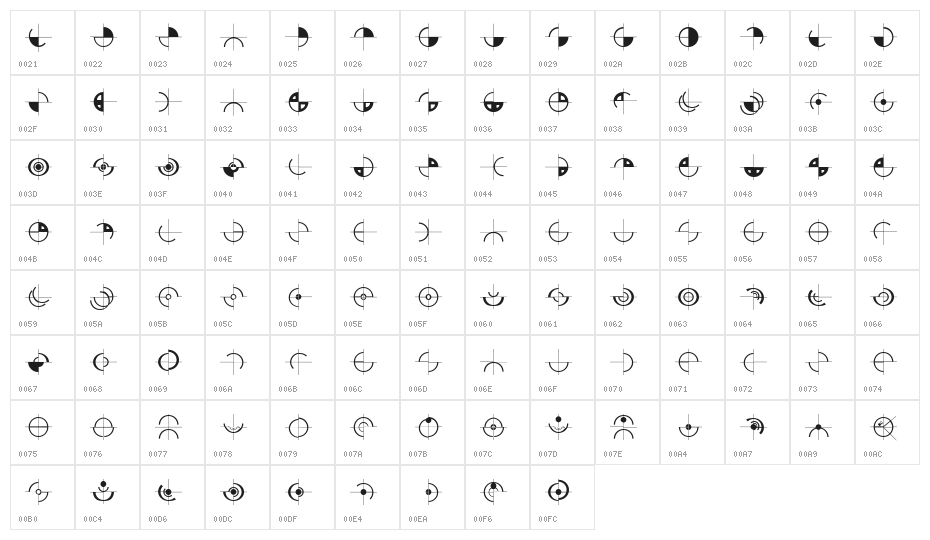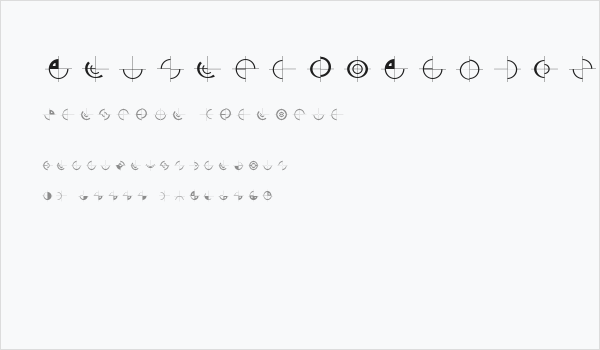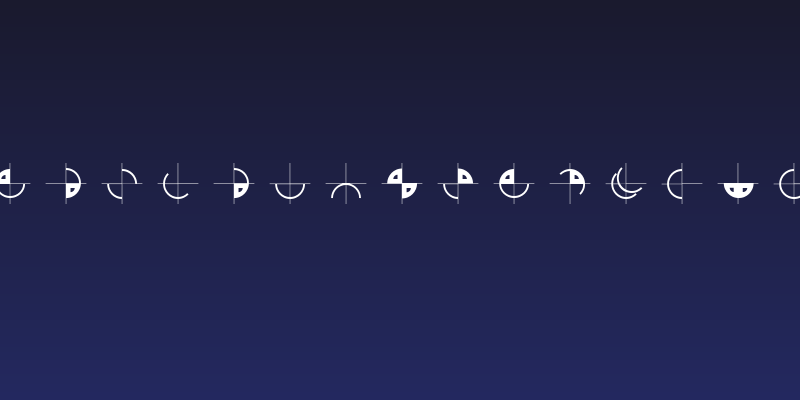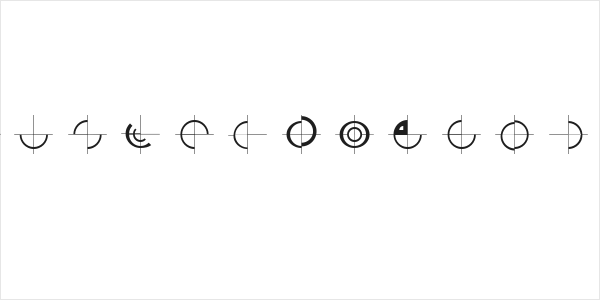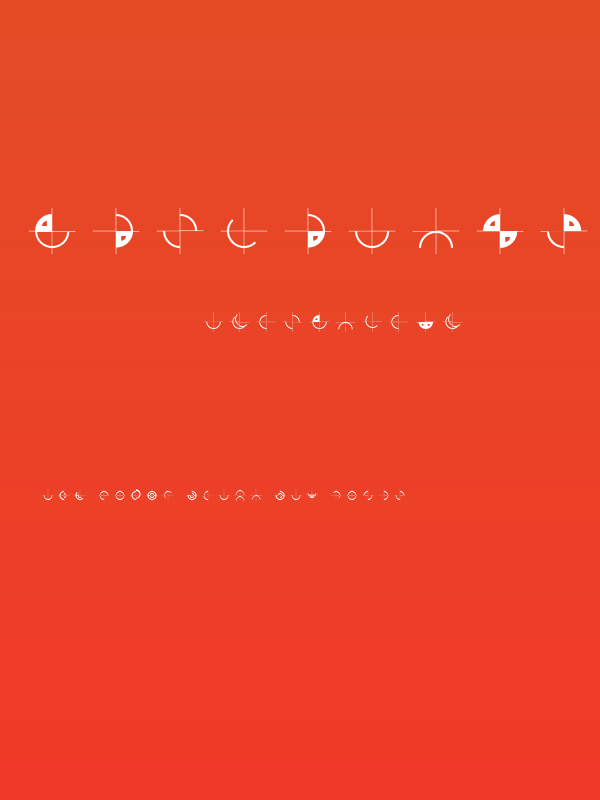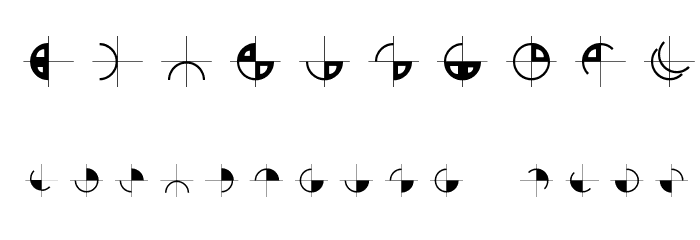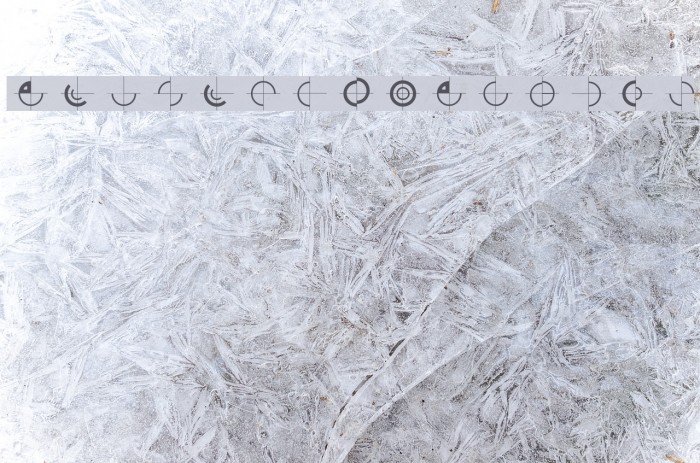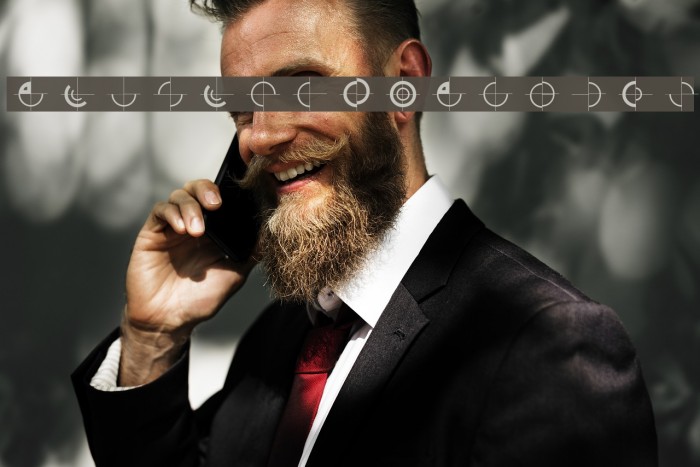
GeometricGlyphs Font
GeometricGlyphs Description
This design features a series of abstract, geometric shapes that resemble glyphs or symbols rather than traditional alphanumeric characters. Each character is composed of intersecting lines and arcs, creating a sense of symmetry and balance. The design is minimalistic, with a focus on clean lines and precise angles. The characters are uniform in size and spacing, contributing to a cohesive and orderly appearance. This style is reminiscent of modern art or architectural blueprints, emphasizing form and structure over readability.
| Use Case | Logos, Decorative elements |
| Proposed Projects | Ideal for modern art projects, architectural designs, or as decorative elements in digital media. |